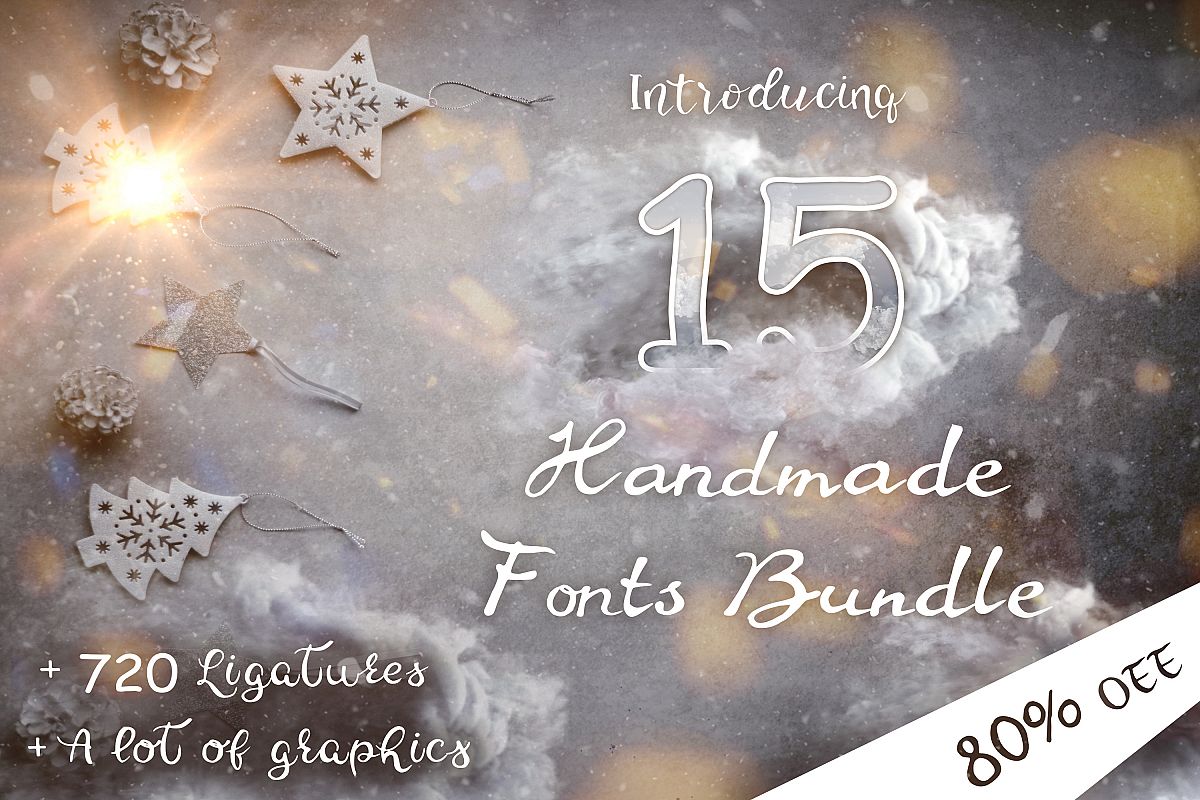
15 Creative Handmade Fonts Bundle
Syringa-Regular
Astrantia-Regular
Geranium-Regular
Dianella-Regular
MorningGlori-Regular
Pelargonium-Regular
Leadword-Regular
Azalia-Regular
ClarySage-Regular
CastonBean-Regular
Linaria-Regular
Magnolia-Regular
Gaura-Regular
Guldahar-Regular
Hepatica-Regular
it's a wonderful font with a unique, detailed and handmade look.
These fonts look amazing in all caps with a wide-set spacing if you want to
try a classy look or beautiful on its own in capital and lowercase
letters for something completely timeless.